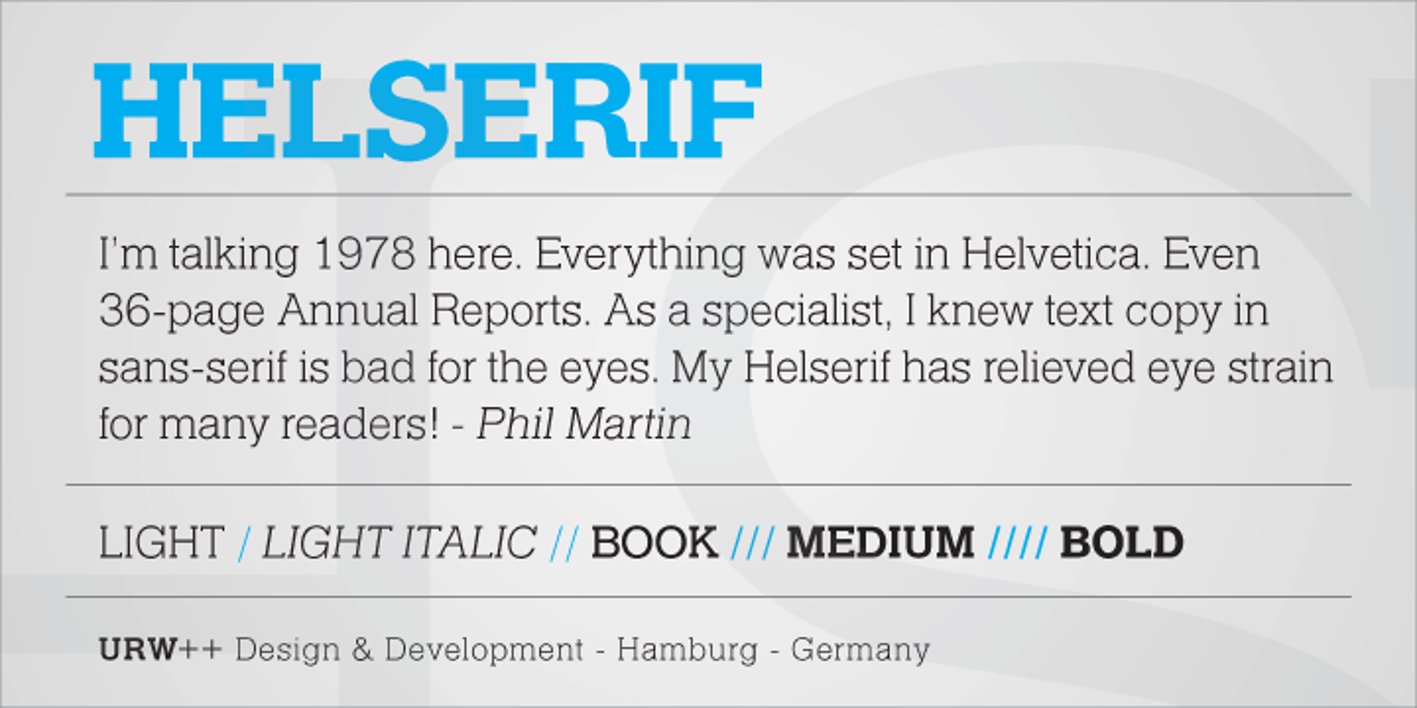
Helserif Font
Helserif Font is ideal for modern editorial design, contemporary book publishing, sophisticated branding, high-end magazine layouts, luxury product packaging, professional presentations, premium website typography, cultural institution materials, elegant business communications, and refined marketing collateral.
What makes Helserif Font so exciting is its innovative fusion of classical serif elegance with contemporary design sensibilities that creates a truly distinctive and versatile typographic solution. This thoughtfully crafted typeface features refined letterforms with carefully balanced serifs and optimized spacing that immediately convey both tradition and modernity. The font's sophisticated construction and timeless appeal create an instant sense of quality and reliability while maintaining excellent readability across all media, making it perfect for projects that need to communicate authority and sophistication to discerning audiences who appreciate typographic excellence.
The Helserif Font family typically includes comprehensive weight variations from light to bold, along with corresponding italic styles and small caps. Contemporary serif font families frequently offer advanced OpenType features including contextual alternates, stylistic sets, and extensive language support that ensure optimal typography across diverse publishing requirements and international communication needs.
The versatility of Helserif Font makes it particularly effective for applications where establishing credibility and trust are essential for success. Publishers and corporate communicators will find this font especially valuable for materials requiring both visual distinction and long-term readability across multiple formats and platforms.
What sets Helserif Font apart is its remarkable ability to honor typographic tradition while embracing contemporary communication needs. This unique characteristic makes it suitable for both conservative institutional applications and progressive brand expressions where bridging heritage and innovation is crucial.
Professional typographers recognize that Helserif Font brings invaluable sophistication to projects across industries including publishing, finance, law, and luxury goods. Its refined character and contemporary relevance make it indispensable for organizations seeking typographic solutions that convey both stability and forward-thinking vision.
The meticulous attention to detail in Helserif Font ensures consistent performance across traditional and digital media while maintaining the elegance that distinguishes exceptional typography.